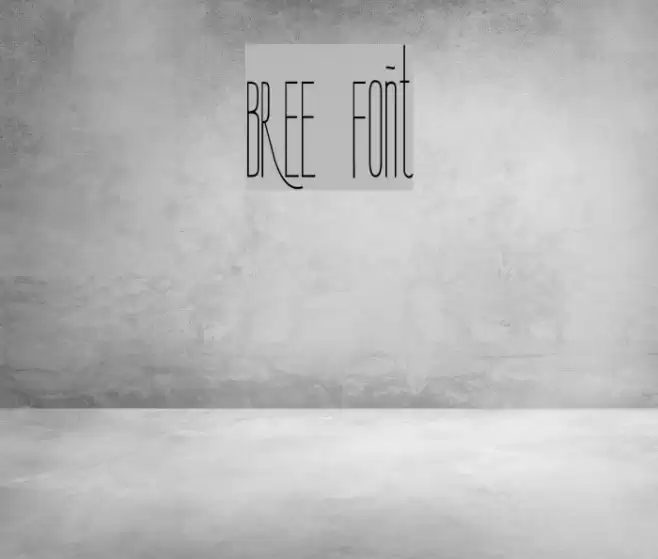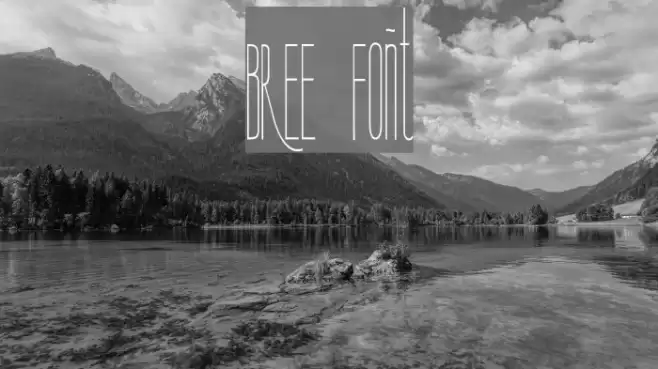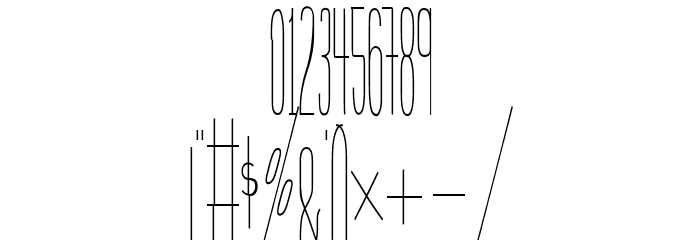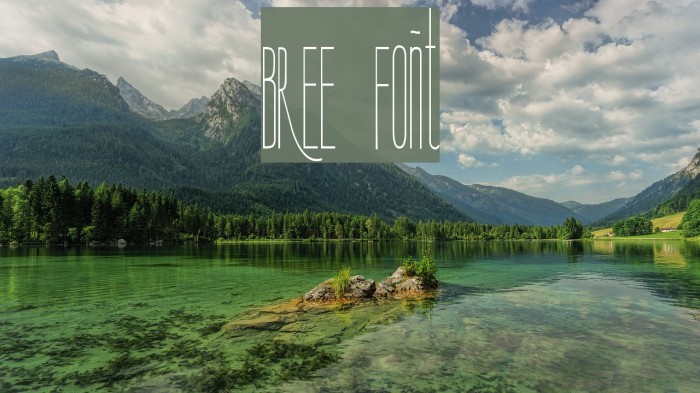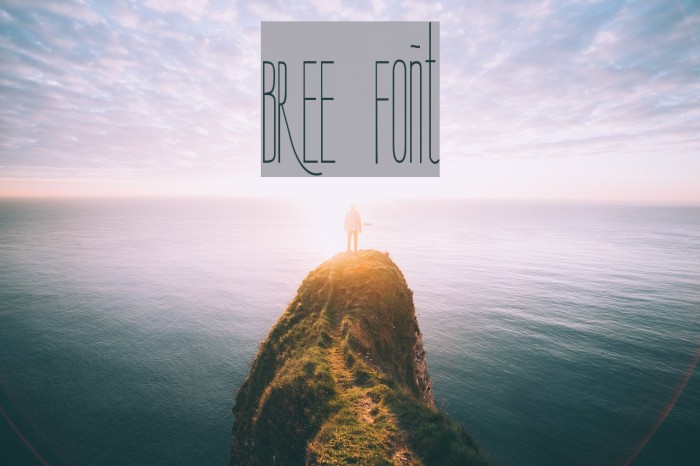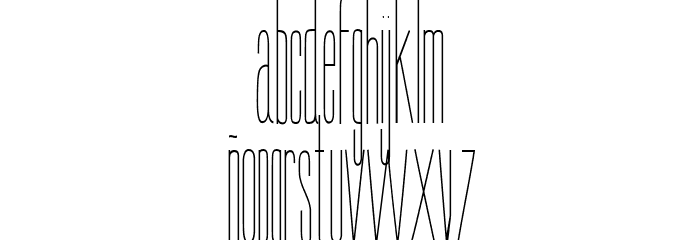
BREE Font
BREE Description
This font features a tall, narrow design with a modern and elegant aesthetic. The characters are elongated and have a consistent stroke width, giving it a sleek and sophisticated appearance. The uppercase letters are particularly striking, with sharp angles and clean lines, while the lowercase letters maintain a similar style with a slightly softer touch. The numerals are distinct and align well with the overall design, making them easy to read. Special characters are included, maintaining the same thin and elongated style, ensuring consistency across all glyphs.
A tall, narrow, and modern font with consistent stroke width and elegant design from Uncategorized fonts.
- Proposed Projects: Ideal for fashion magazines, luxury branding, high-end product packaging, and modern website headers.